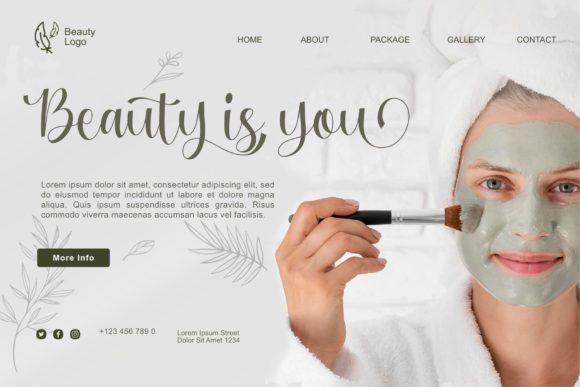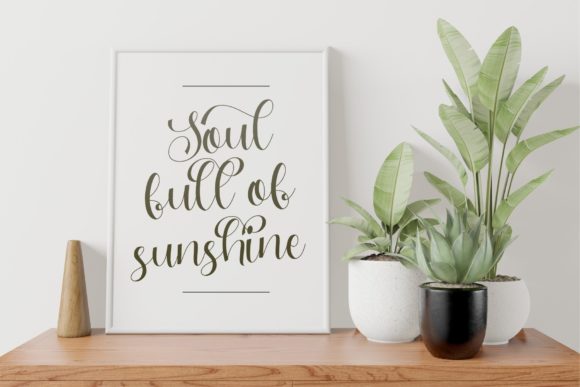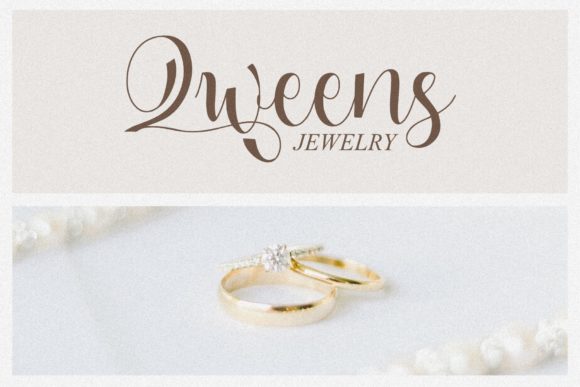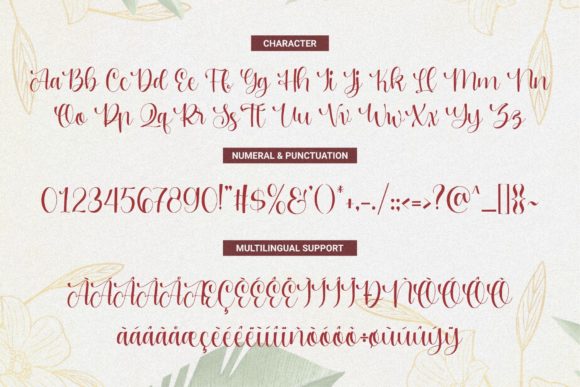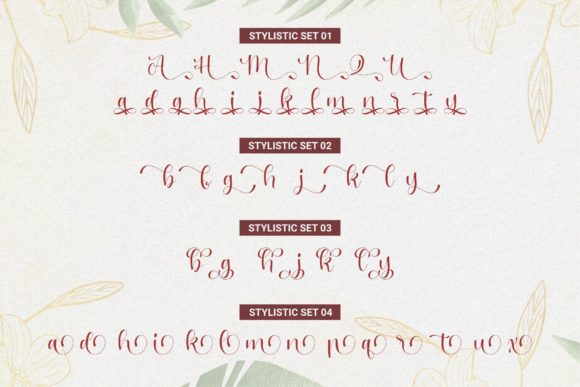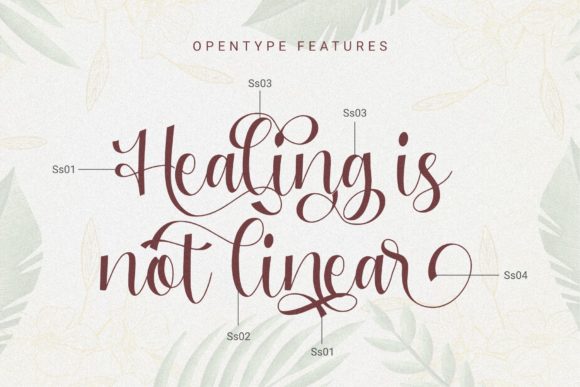
Introducing Healing Novelia Font: A Charming Script Font for Creative Minds
Are you a designer, crafter, or DIY enthusiast looking for a unique and playful font to elevate your creative projects? Look no further than Healing Novelia Font, a lovely script font that is sure to capture your heart. With its charming and whimsical characters, Healing Novelia is the perfect addition to any design, craft, or art project.
What Makes Healing Novelia Font So Special?
Healing Novelia Font is a beautifully designed script font that features charming, playful characters that seem to dance along the baseline. Its unique and elegant design makes it perfect for a wide range of creative projects, from handmade crafts to digital designs. Whether you’re creating invitations, greeting cards, or social media graphics, Healing Novelia Font is sure to add a touch of magic to your work.
One of the best things about Healing Novelia Font is that it is PUA (Private Use Area) encoded, which means that you can access all of the amazing glyphs and ligatures with ease. PUA encoding allows you to use the font’s special characters, such as swashes, flourishes, and alternate letters, without having to worry about complicated installation or setup processes. This makes it easy to get creative and experiment with different design ideas.
Healing Novelia Font is a versatile font that is perfect for designers and crafters alike. Whether you’re creating digital designs or handmade crafts, this font is sure to add a touch of personality and whimsy to your work. Designers can use Healing Novelia Font to create beautiful branding materials, such as logos, business cards, and social media graphics, while crafters can use it to create handmade cards, invitations, and other paper crafts.
With Healing Novelia Font, the creative possibilities are endless. Here are just a few ideas to get you started:
• Create beautiful handmade cards and invitations for special occasions, such as weddings, birthdays, and holidays.
• Design stunning digital graphics, such as social media posts, blog headers, and email newsletters.
• Make personalized gifts, such as customized mugs, t-shirts, and tote bags.
• Create unique and eye-catching branding materials, such as logos, business cards, and brochures.
Why Choose Healing Novelia Font?
There are many script fonts available, but Healing Novelia Font stands out from the crowd for several reasons:
• Unique and elegant design: Healing Novelia Font features a beautiful and distinctive design that is sure to capture attention.
• PUA encoded: With PUA encoding, you can access all of the font’s special characters and glyphs with ease.
• Versatile: Healing Novelia Font is perfect for a wide range of creative projects, from digital designs to handmade crafts.
If you’re looking for a charming and playful script font to elevate your creative projects, look no further than Healing Novelia Font. With its unique and elegant design, PUA encoding, and versatility, this font is perfect for designers, crafters, and DIY enthusiasts alike. So why wait? Add Healing Novelia Font to your creative toolkit today and discover a world of endless creative possibilities!